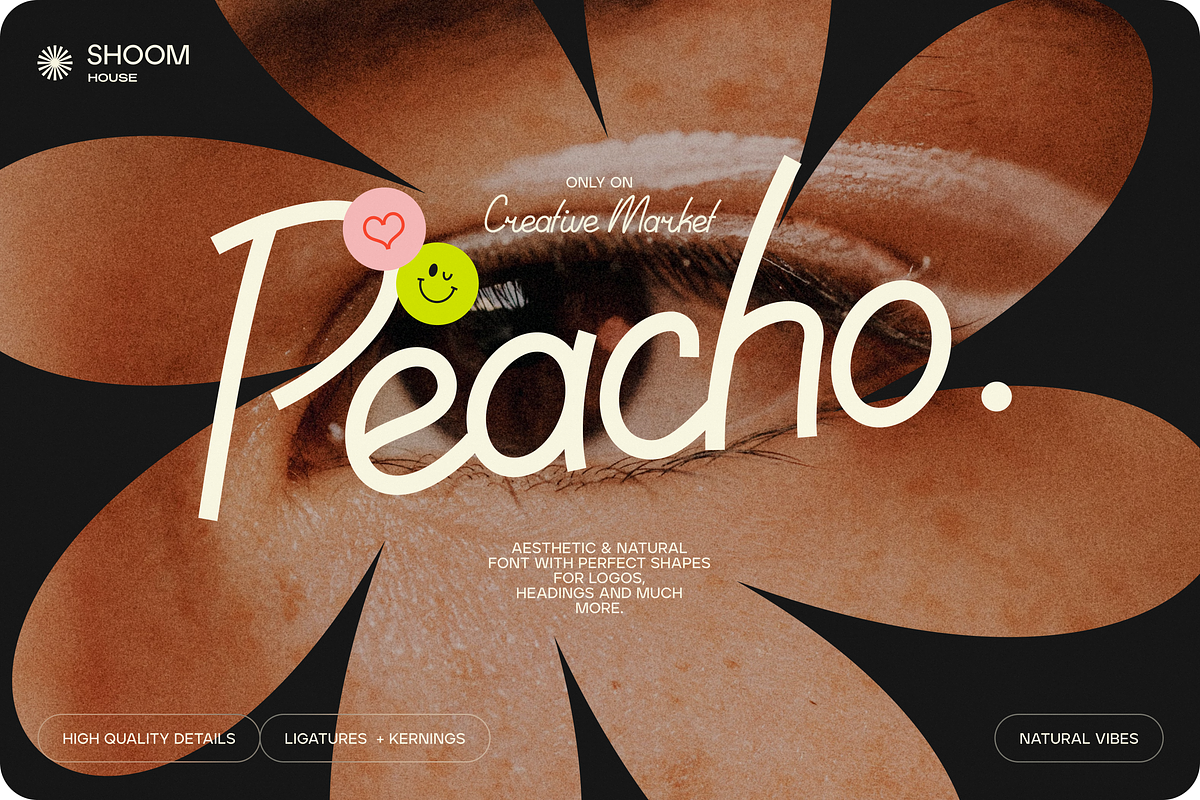
Please note, you must purchase this font for commercial use. However, you can easily download Peacho: Aesthetic Script Font Free Download for personal use and testing purposes. Peacho: Aesthetic Script Font is a modern and stylish handwritten typeface that exudes elegance and creativity. Perfect for branding, invitations, social media graphics, and more, this font combines smooth curves with a flowing, artistic flair. Whether you're designing a logo, creating a personal project, or working on a luxury brand, Peacho: Aesthetic Script Font Free Download adds a sophisticated yet playful touch to any design. Download Peacho: Aesthetic Script Font Free Download today and explore its potential before opting for a commercial license.